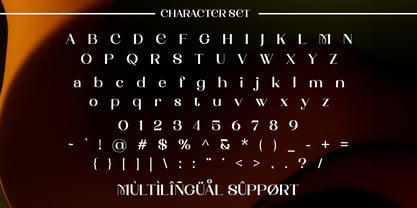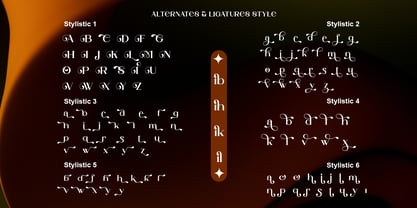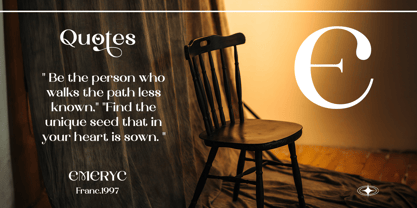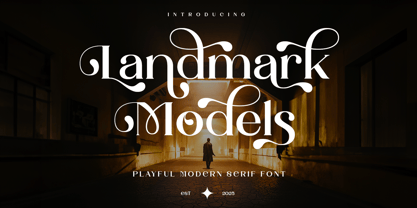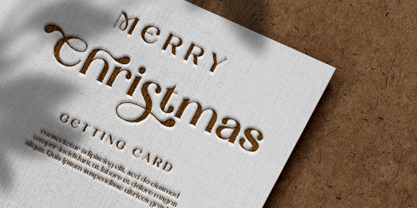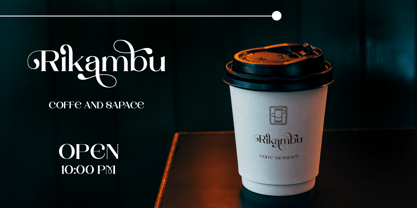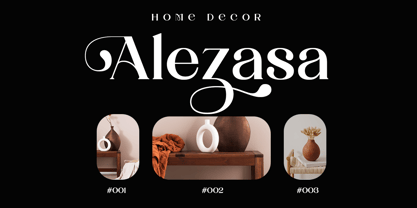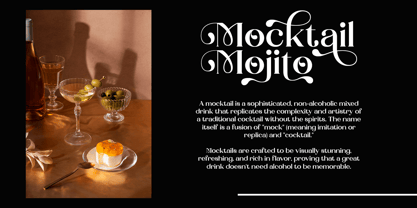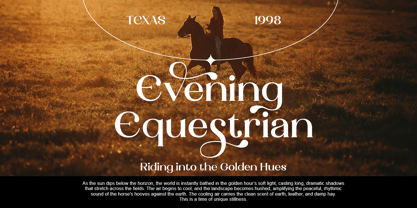
Landmark Models
by RagamKata
The Landmark Models Font Family was designed by Yogiswhara Dio Prakoso Riadi and published by RagamKata. Landmark Models contains 2 styles and family package options. More about this family
Landmark Models is a playful modern serif that exudes elegance, creativity, and timeless charm. With expressive curves and refined details, this typeface is perfect for branding, fashion, packaging, editorial design, and logos. It blends modern sophistication with artistic flair, making every project look luxurious and professional. Elevate your visual identity with Landmark Models — where style meets imagination. File Included : - Landmark Models - Landmark Models Italic - Stylistic Alternates - Multilingual Support Thanks, Have a nice day Ragamkata Studio